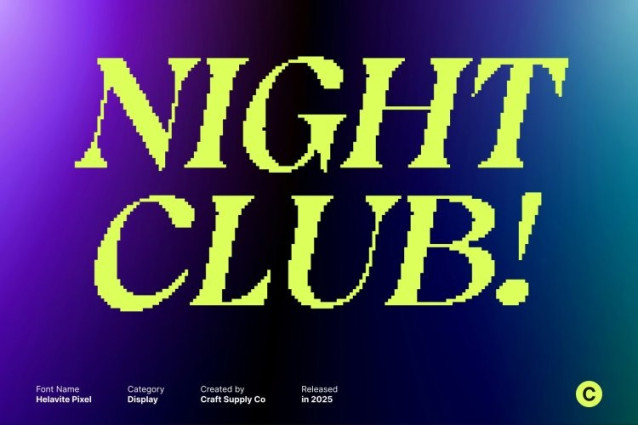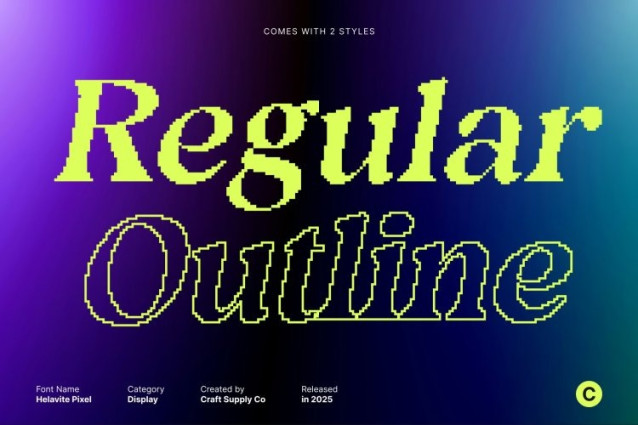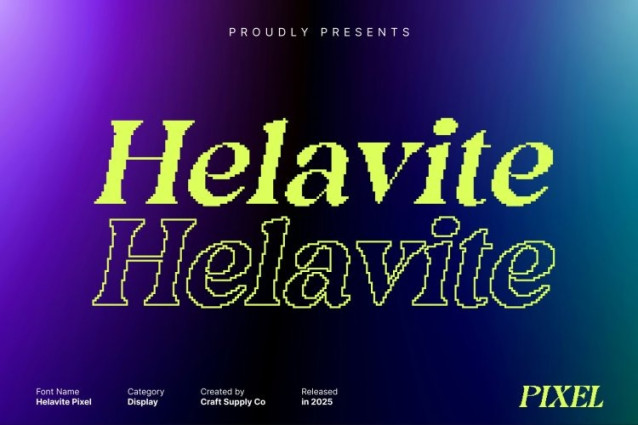
Helavite Pixel Font
Helavite Pixel Font Imagine the timeless charm of serif letterforms infused with pixel-inspired design. This retro display font brings together traditional typographic elegance and modern digital creativity, creating a unique balance between classic and contemporary aesthetics. Each character carries personality while maintaining readability and style.
Pixel Creativity for Playful and Modern Expression
The pixel detailing adds a touch of digital flair, giving the font a fun, energetic, and slightly quirky personality. This feature transforms classic serif shapes into lively, visually engaging typography, perfect for projects that want to evoke nostalgia while feeling fresh and modern.
Ideal for Retro Designs, Digital Posters, and Fun Branding
This font shines in display applications where visual impact is key. Use it for retro-themed designs, digital posters, playful logos, t-shirts, or branding projects that require both a nostalgic and creative aesthetic. Its distinctive pixel-serif combination ensures your text stands out.
Nostalgic, Playful, and Visually Unique
By merging classic serif sophistication with pixel-inspired creativity, this font offers a typeface that is both familiar and fresh. It’s perfect for designers who want to evoke nostalgia while adding a modern, digital twist to their projects.